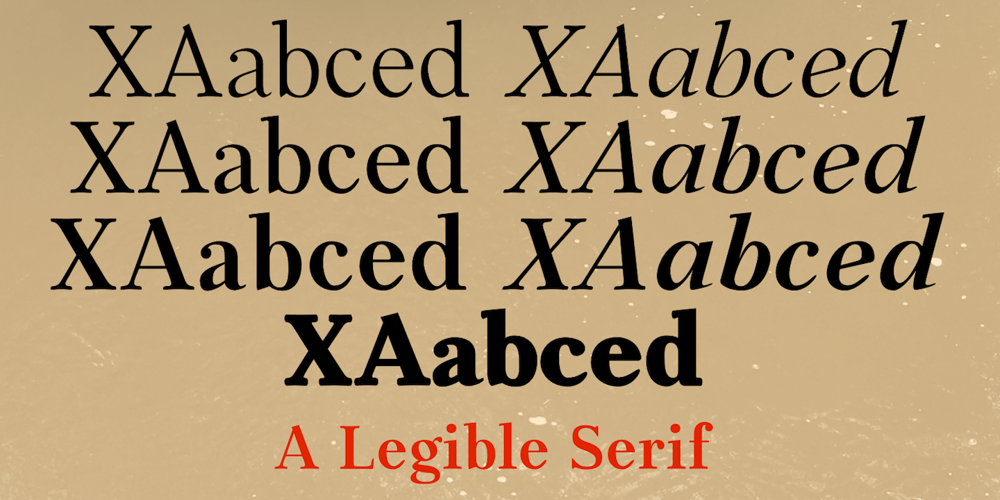
XAabced
XAabced font
XAabced Font Family was designed by Robert Schenk and published by Ingrimayne Type. XAabced contains 7 styles and family package options. XAabced evolved gradually as I reworked earlier attempts to do a text face. It is quite condensed, but with fairly long ascenders and descenders. Blending it with JasperSqueeze resulted in JabcdHy, which I prefer to either parent.